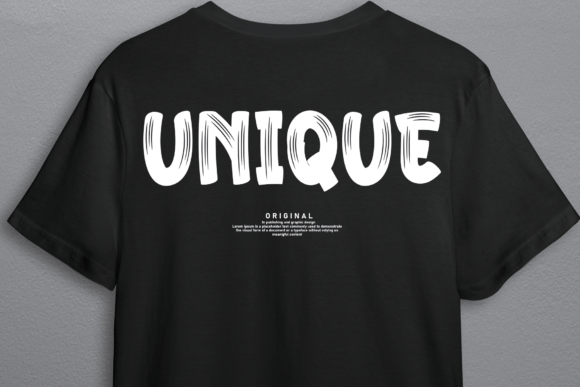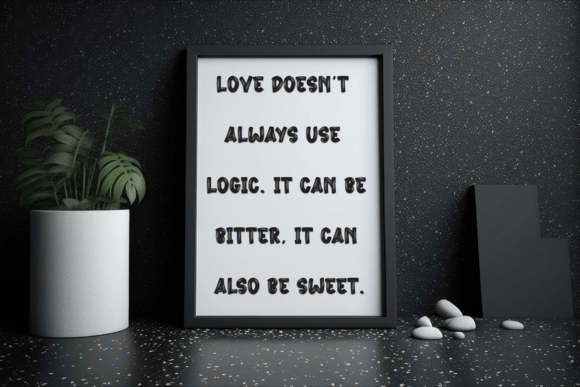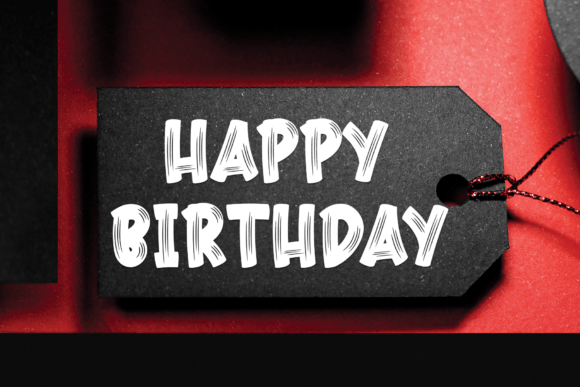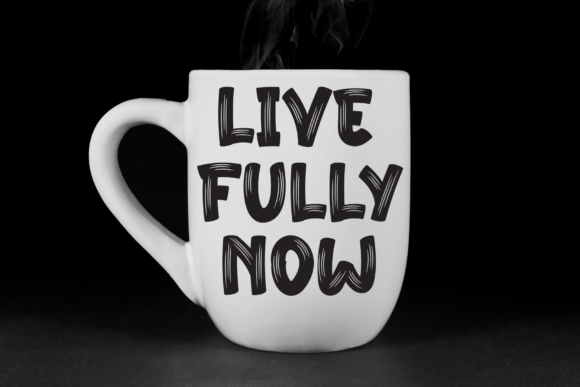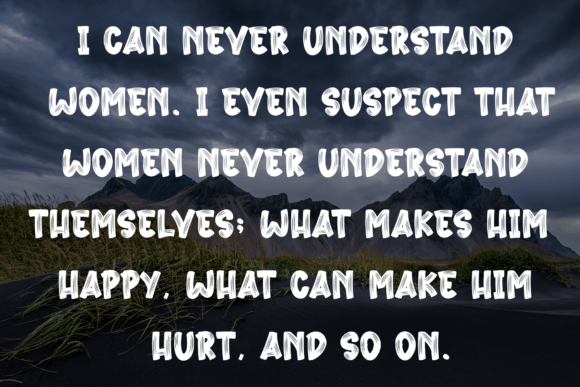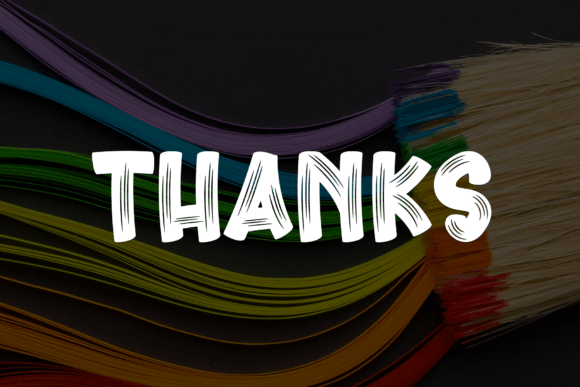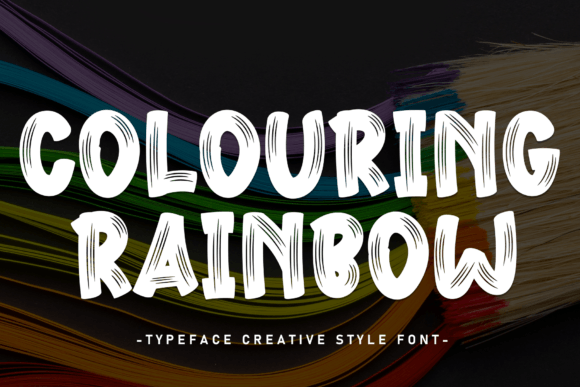
Introducing Colouring Rainbow Font: The Ultimate Display Font for Friendly Designs
Are you a designer, crafter, or digital artist looking for a font that exudes friendliness and playfulness? Look no further than Colouring Rainbow Font! This delightful display font is perfect for a variety of creative projects, from crafts and digital designs to presentations and greeting cards. In this article, we’ll dive into the world of Colouring Rainbow Font and explore its features, benefits, and uses.
The Characteristics of Colouring Rainbow Font
Colouring Rainbow Font is a childish, easy-to-read display font that is sure to capture the attention of your audience. Its impeccable friendliness makes it an ideal choice for designs that require a playful and approachable tone. The font’s colorful and vibrant appearance is reminiscent of a rainbow, making it perfect for projects that require a pop of color and energy.
What Makes Colouring Rainbow Font Special?
So, what sets Colouring Rainbow Font apart from other display fonts? Here are a few reasons why this font has the potential to become your go-to font for all your design needs:
- Easy to Read: Despite its playful appearance, Colouring Rainbow Font is surprisingly easy to read, making it perfect for digital designs, presentations, and even body text.
- Versatile: This font is incredibly versatile and can be used for a wide range of projects, from crafts and DIY designs to digital art and professional presentations.
- Colourful: The font’s colorful appearance is sure to add a splash of fun and energy to your designs, making it perfect for projects that require a playful tone.
- Childish Appeal: The font’s childish appeal makes it perfect for designs aimed at a younger audience, such as children’s books, educational materials, and kids’ party invitations.
Uses for Colouring Rainbow Font
So, what can you use Colouring Rainbow Font for? The possibilities are endless! Here are a few ideas to get you started:
- Crafts: Use Colouring Rainbow Font to add a personal touch to your craft projects, such as scrapbooking, card making, and DIY gifts.
- Digital Design: This font is perfect for digital designs, such as social media graphics, blog posts, and website headers.
- Presentations: Add a playful touch to your presentations with Colouring Rainbow Font, making them more engaging and fun to watch.
- Greeting Cards: Use this font to create fun and colorful greeting cards for special occasions, such as birthdays, holidays, and weddings.
Tips for Using Colouring Rainbow Font
To get the most out of Colouring Rainbow Font, here are a few tips to keep in mind:
- Use it sparingly: While Colouring Rainbow Font is perfect for headings and titles, it’s best to use it sparingly for body text to avoid overwhelming the reader.
- Pair it with other fonts: Experiment with pairing Colouring Rainbow Font with other fonts to create a unique and visually appealing design.
- Play with colors: Don’t be afraid to experiment with different colors and color combinations to make your design pop.
In conclusion, Colouring Rainbow Font is a delightful display font that is sure to bring a splash of fun and energy to your designs. Its easy-to-read appearance, versatility, and colourful design make it perfect for a wide range of creative projects. Whether you’re a designer, crafter, or digital artist, this font has the potential to become your go-to font for all your design needs. So why not give it a try and see the difference it can make in your designs?